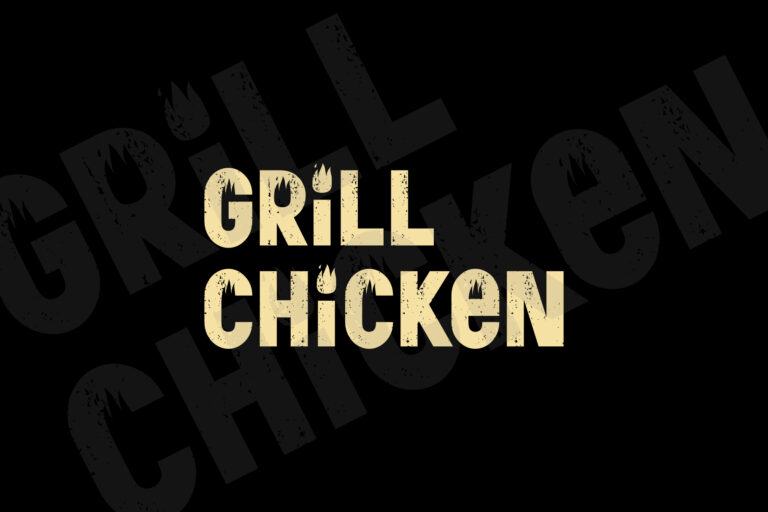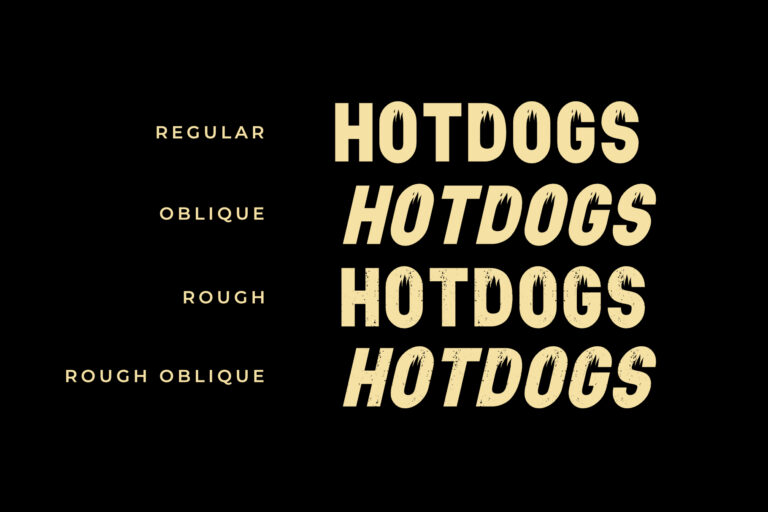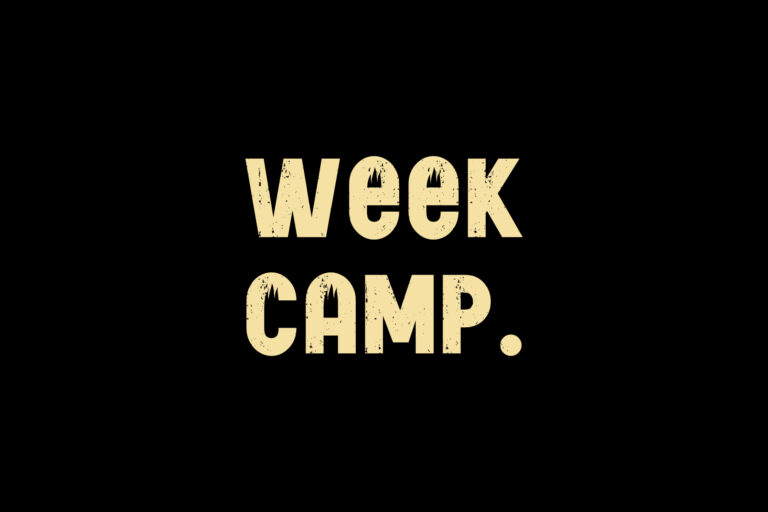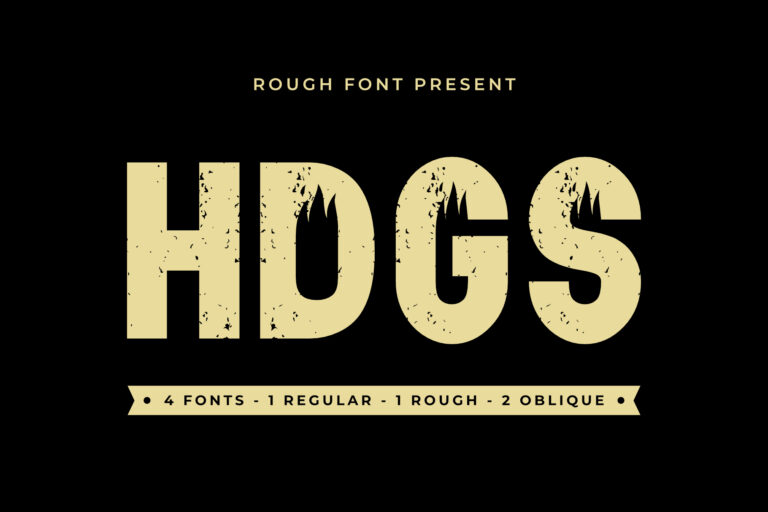
7. HOTDOGS SANS SERIF FONT
Hotdogs sans serif fonts bold
HOTDOGS SANS SERIF FONT
If you’re a designer looking for an alternative sans serif font for your project, you can rely on my Hotdogs font.